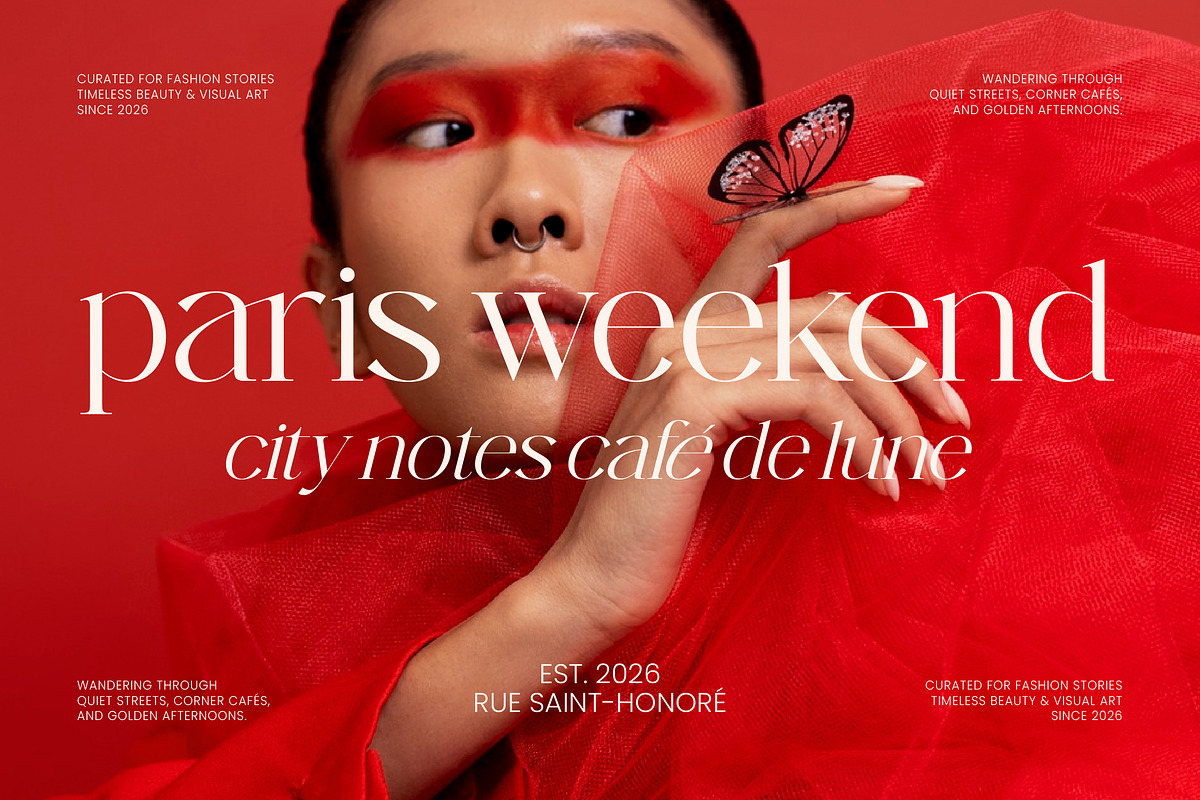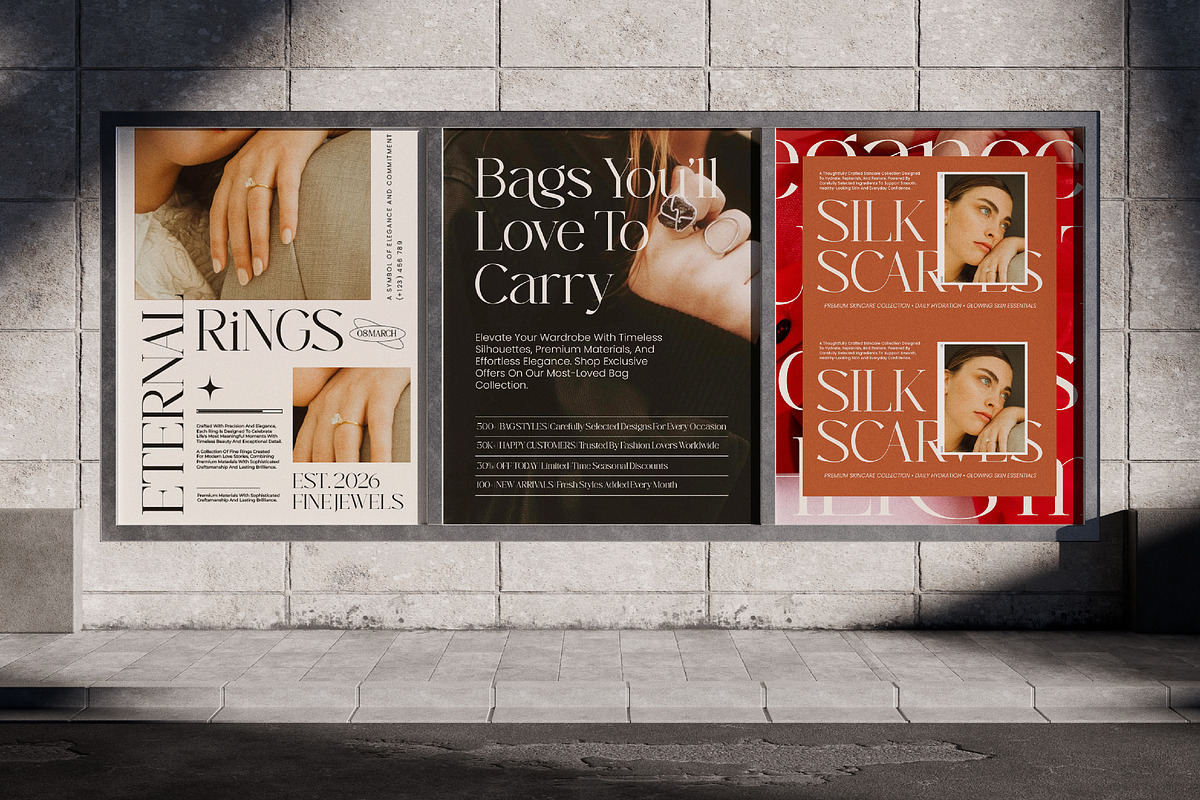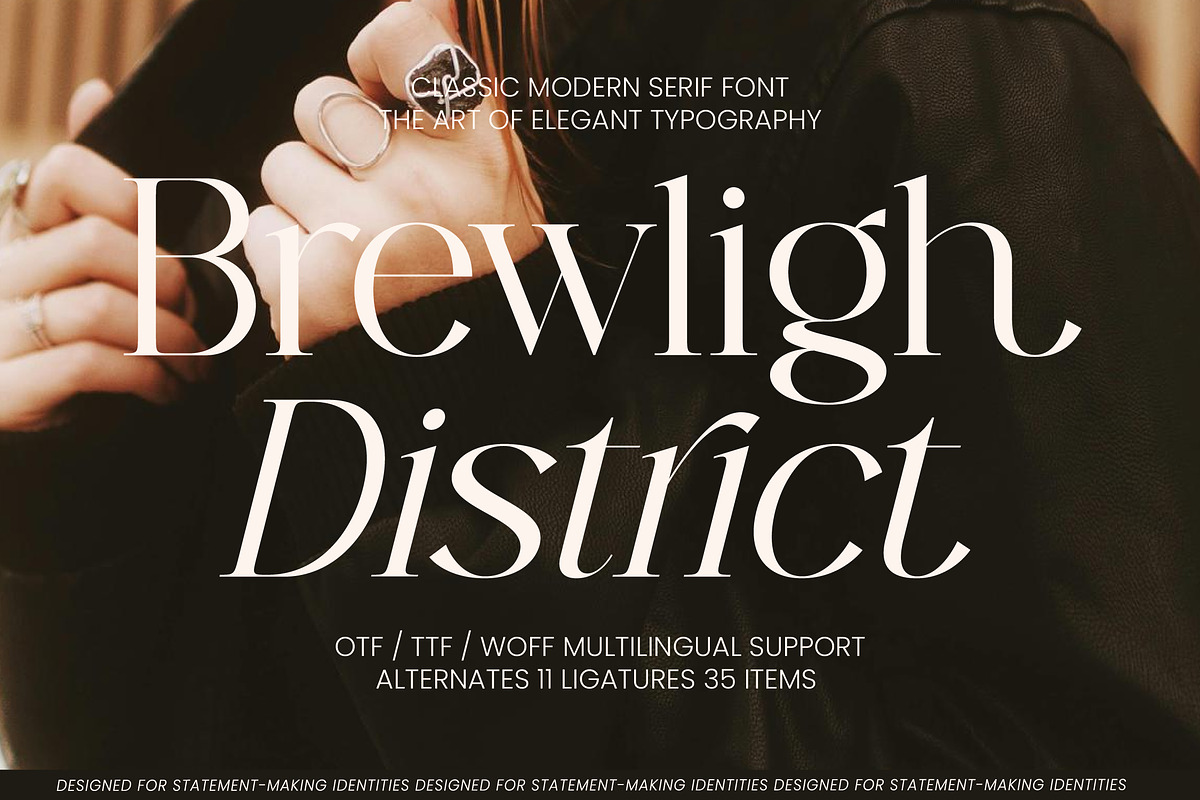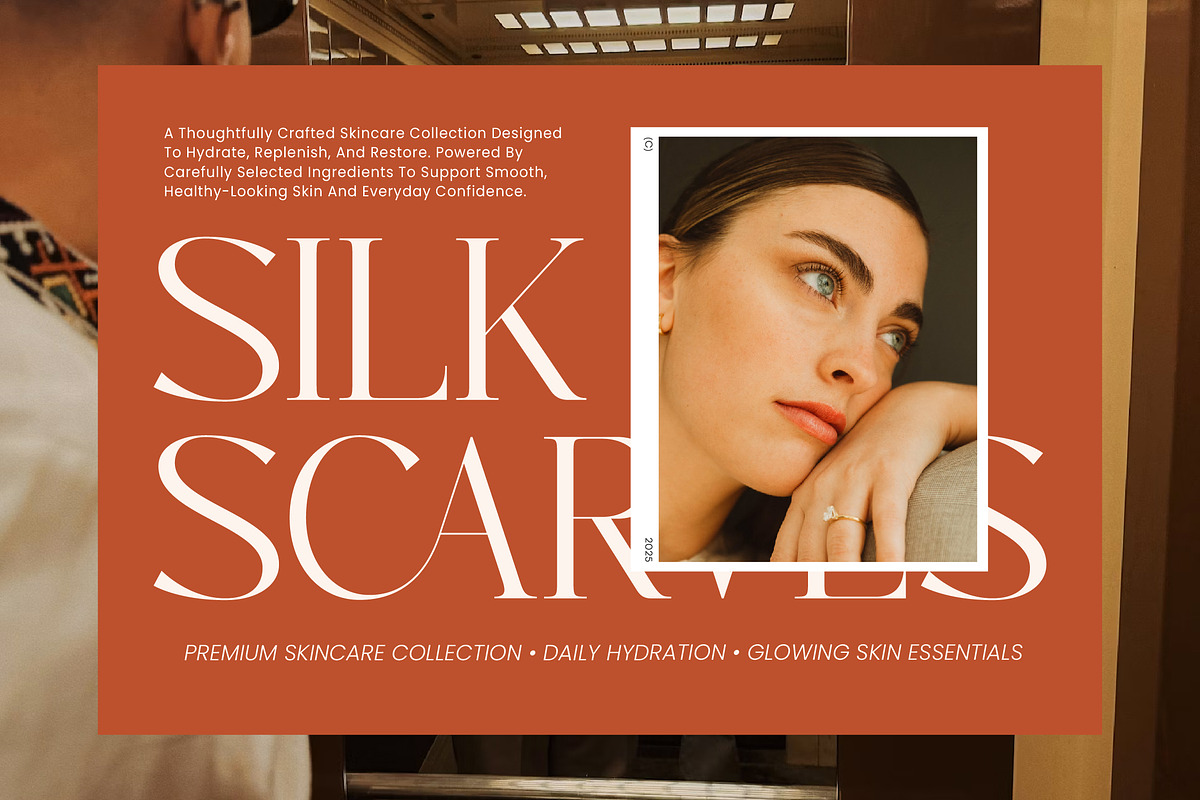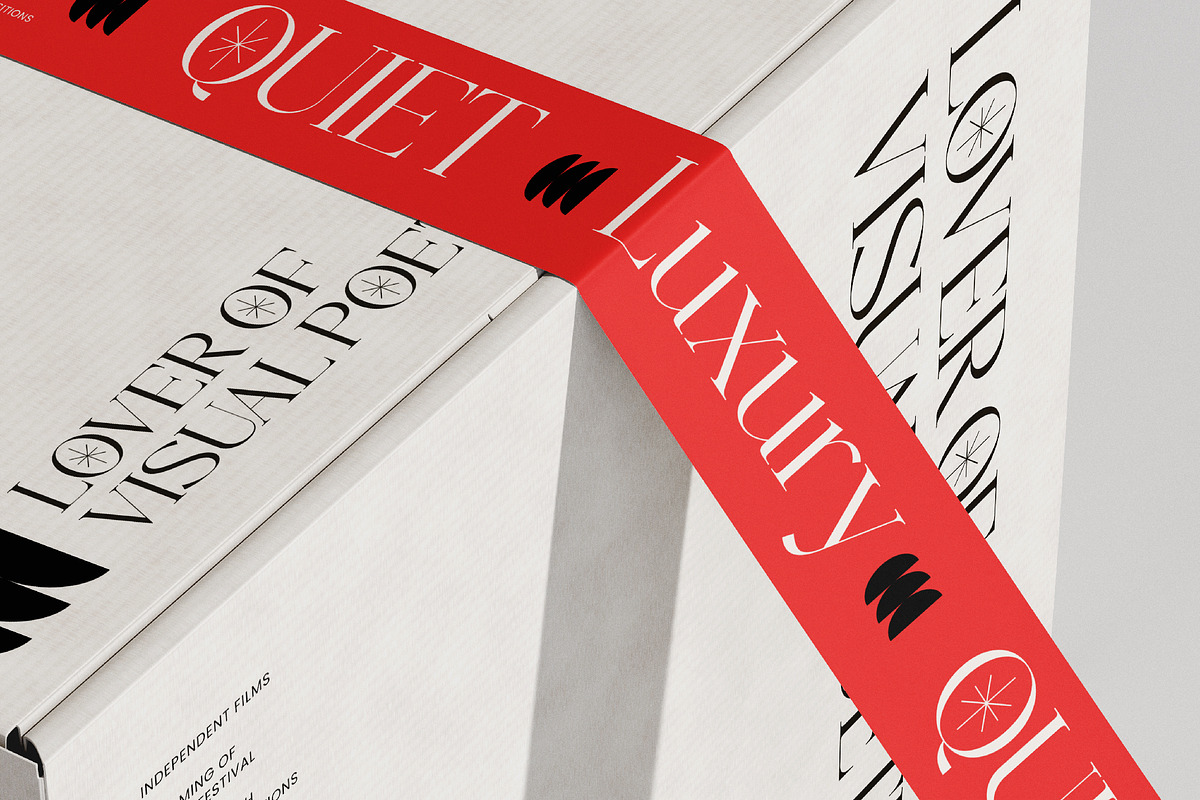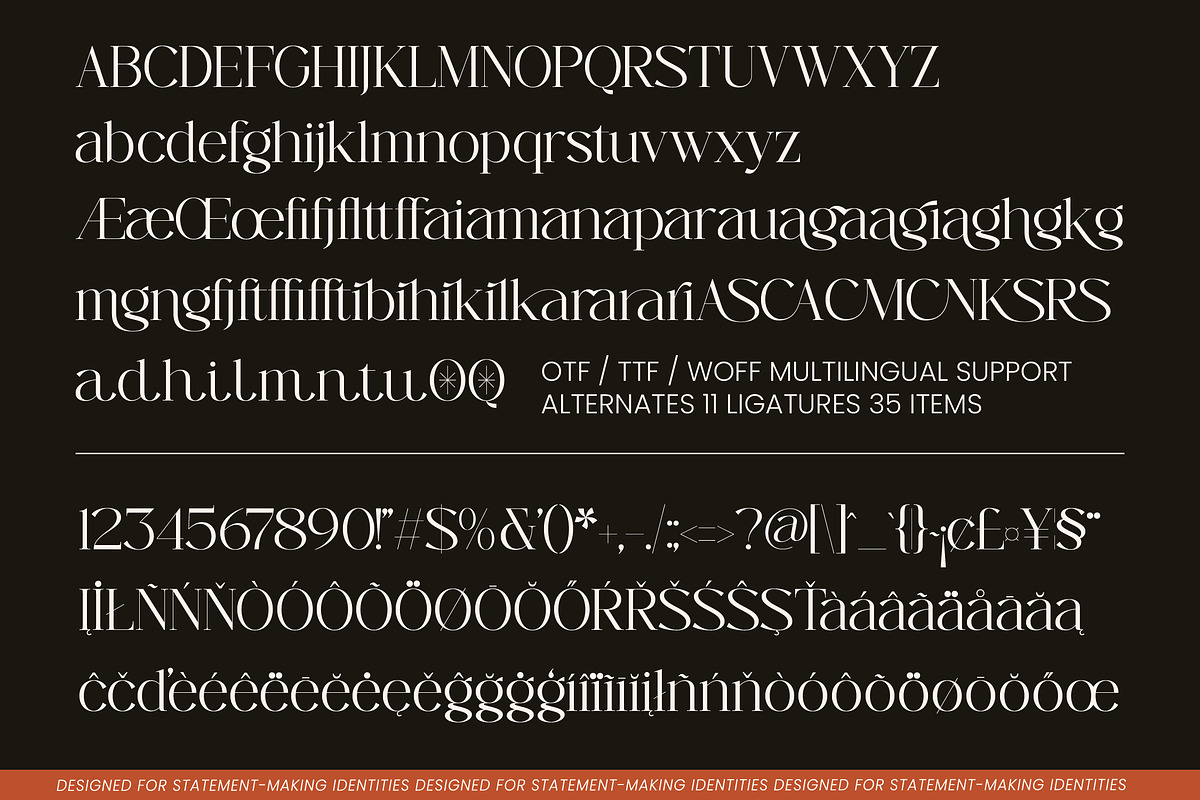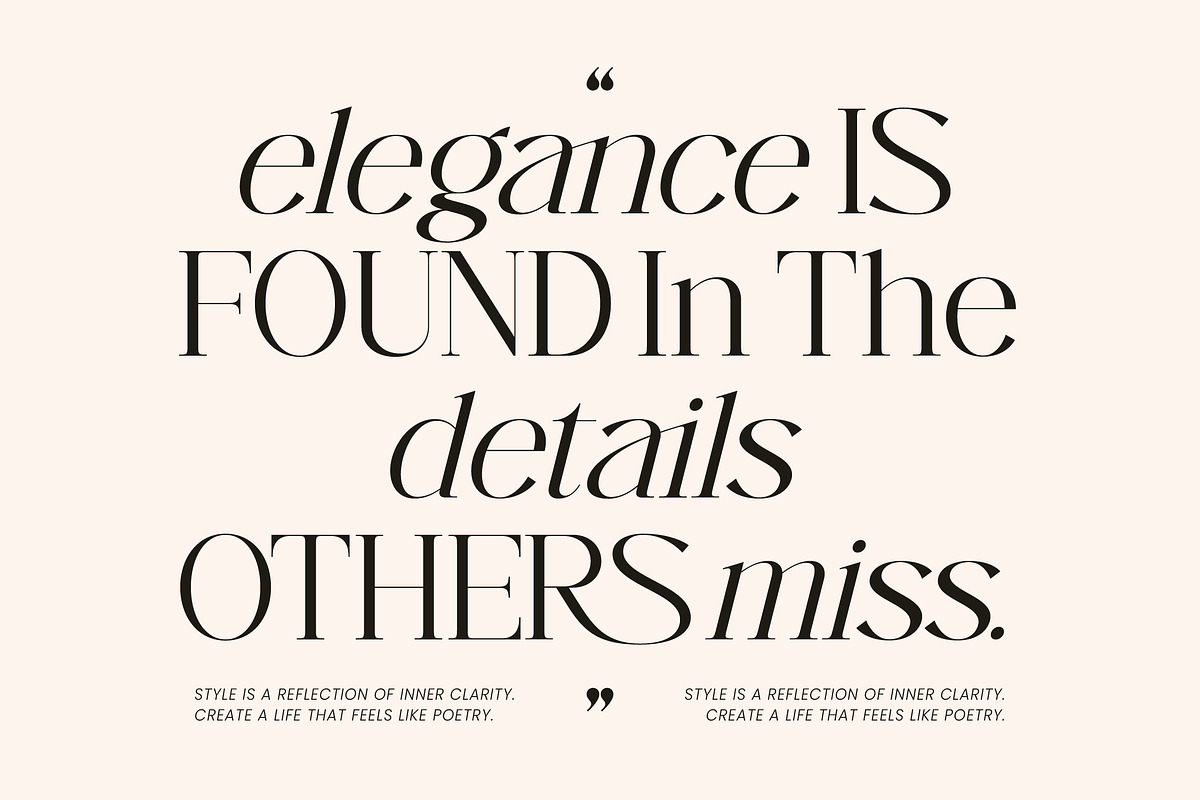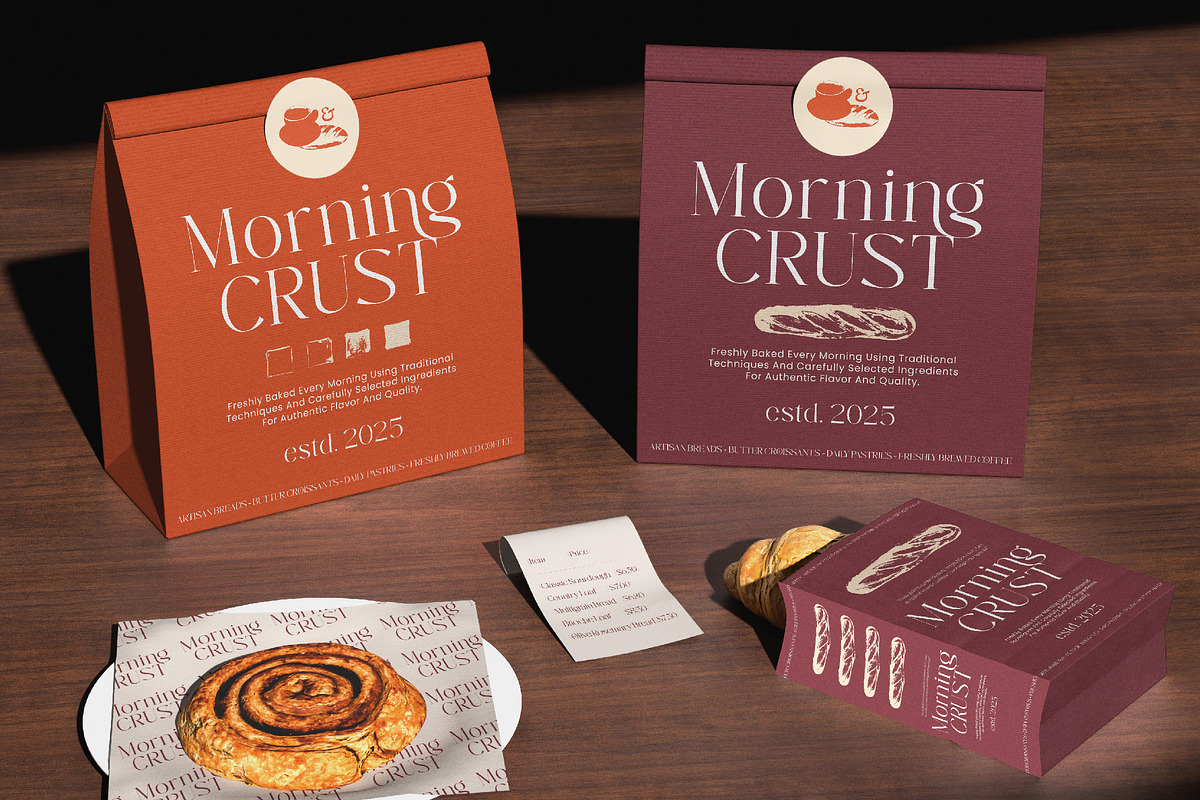
Brewligh District Modern Serif
Brewligh District is a classic modern serif font designed to embody elegance, sophistication, and timeless luxury. Inspired by contemporary editorial typography, premium fashion branding, and refined visual culture, it combines graceful letterforms with striking contrast to create a memorable and sophisticated presence.
With elegant proportions, refined curves, and luxurious details, Brewligh District is perfectly suited for branding, packaging, logos, fashion campaigns, beauty products, magazines, editorial layouts, and high-end visual identities. Its modern serif construction delivers both readability and aesthetic impact, making it ideal for projects that demand refinement and distinction.
Brewligh District balances classic serif elegance with modern editorial sophistication, creating typography that feels luxurious, stylish, and highly versatile.
🔡 OpenType Features: 35 Ligatures & 11 Alternates
Brewligh District is created for designers who want a classic modern serif font that feels elegant, luxurious, and timeless—perfect for branding, editorial design, packaging, fashion, beauty, and sophisticated visual storytelling.